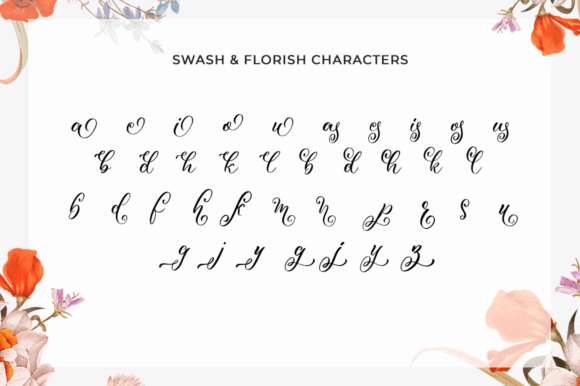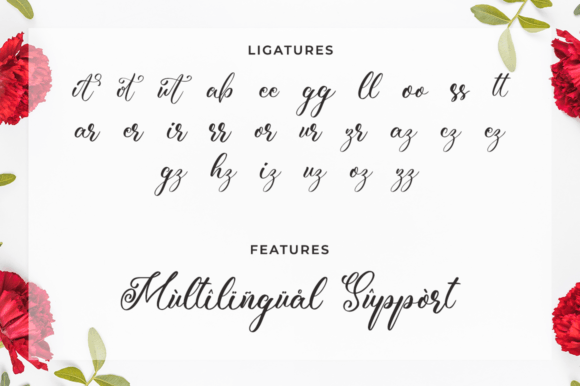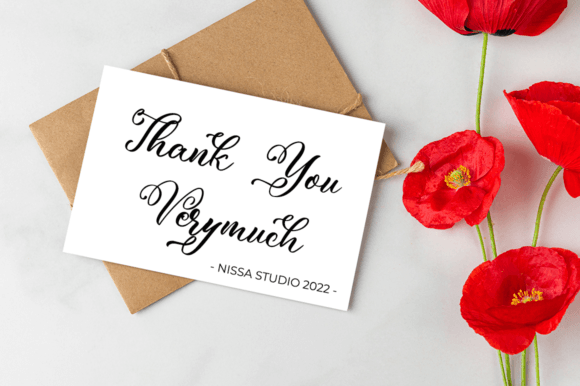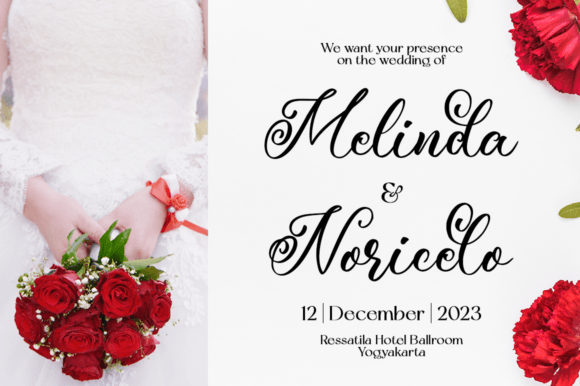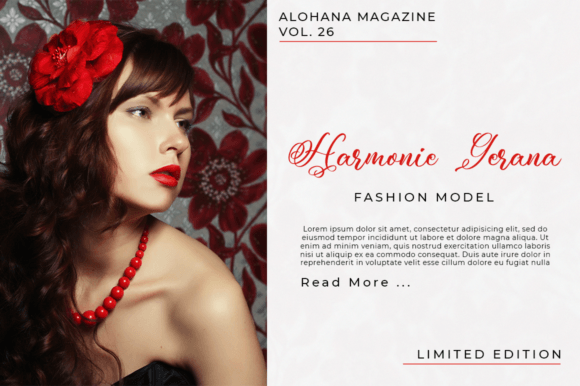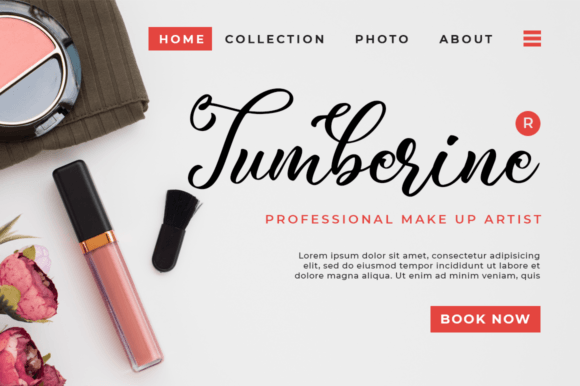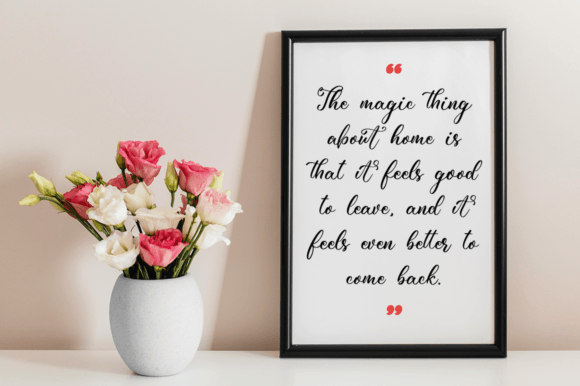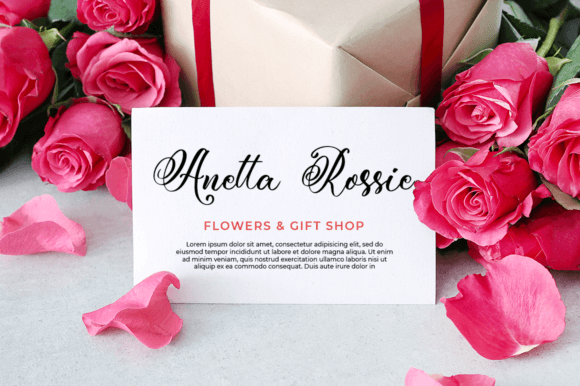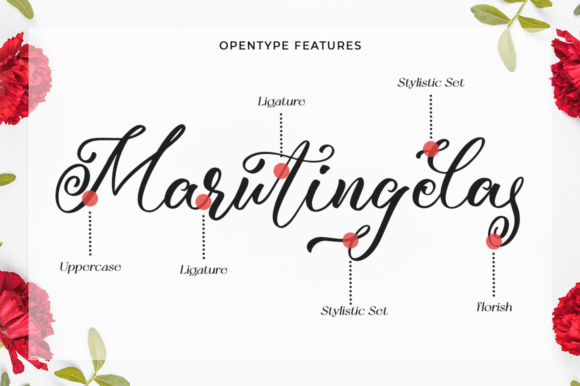
Rossedina Font
About Rossedina Font
“Rossedina” is a stylish handwritten font that exudes both charm and elegance. This versatile font is a perfect choice for a wide range of design projects, including wedding invitations, thank-you cards, quotes, greeting cards, logos, business cards, and any other creative endeavor that calls for a personalized touch.
One of the standout features of “Rossedina” is its ability to add a touch of sophistication and refinement to your designs. The script’s well-crafted characters flow smoothly, creating a harmonious and graceful appearance. This makes it particularly well-suited for wedding-related materials, where an elegant and customized look is often desired.
Additionally, “Rossedina” offers a wide range of glyphs and swashes, thanks to its PUA (Private Use Area) encoding. This means you have easy access to various decorative elements, alternate characters, and ligatures that can further enhance the uniqueness of your designs. These